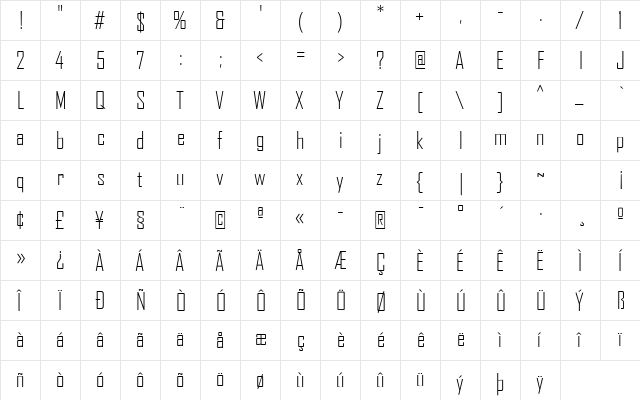
AgencyFB Light Regular
Design Context for AgencyFB Light Typeface
AgencyFB Light offers clean, dependable letterforms without strong stylistic allegiance, making it a practical choice for designers who need flexibility. Its slender proportions lend an understated elegance to any composition.